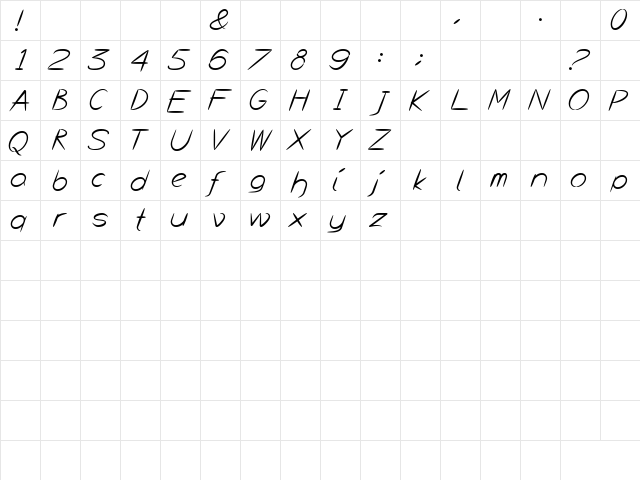
Bayou Regular
| Designer | Simon Beck |
Design Context for Bayou Typeface
Bayou offers clean, dependable letterforms without strong stylistic allegiance, making it a practical choice for designers who need flexibility.